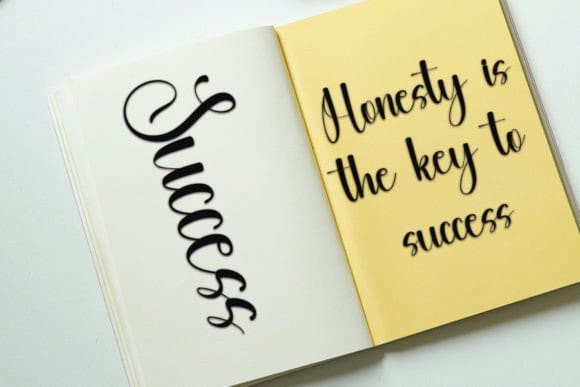
Dinner Script Typeface
Dinner Script Typeface is an enchanting handwritten font. This versatile typeface has a wide spectrum of applications ranging from greeting cards to headlines and is guaranteed to add a romantic feel to your next project.